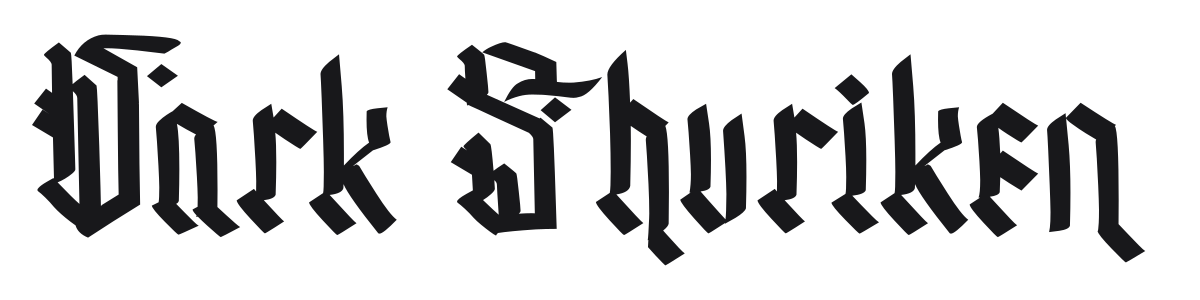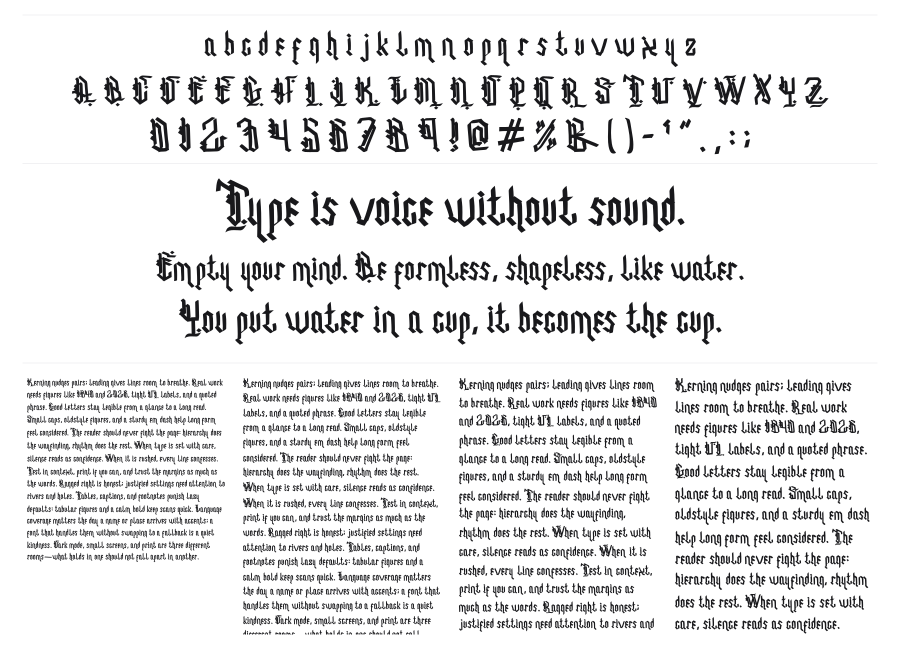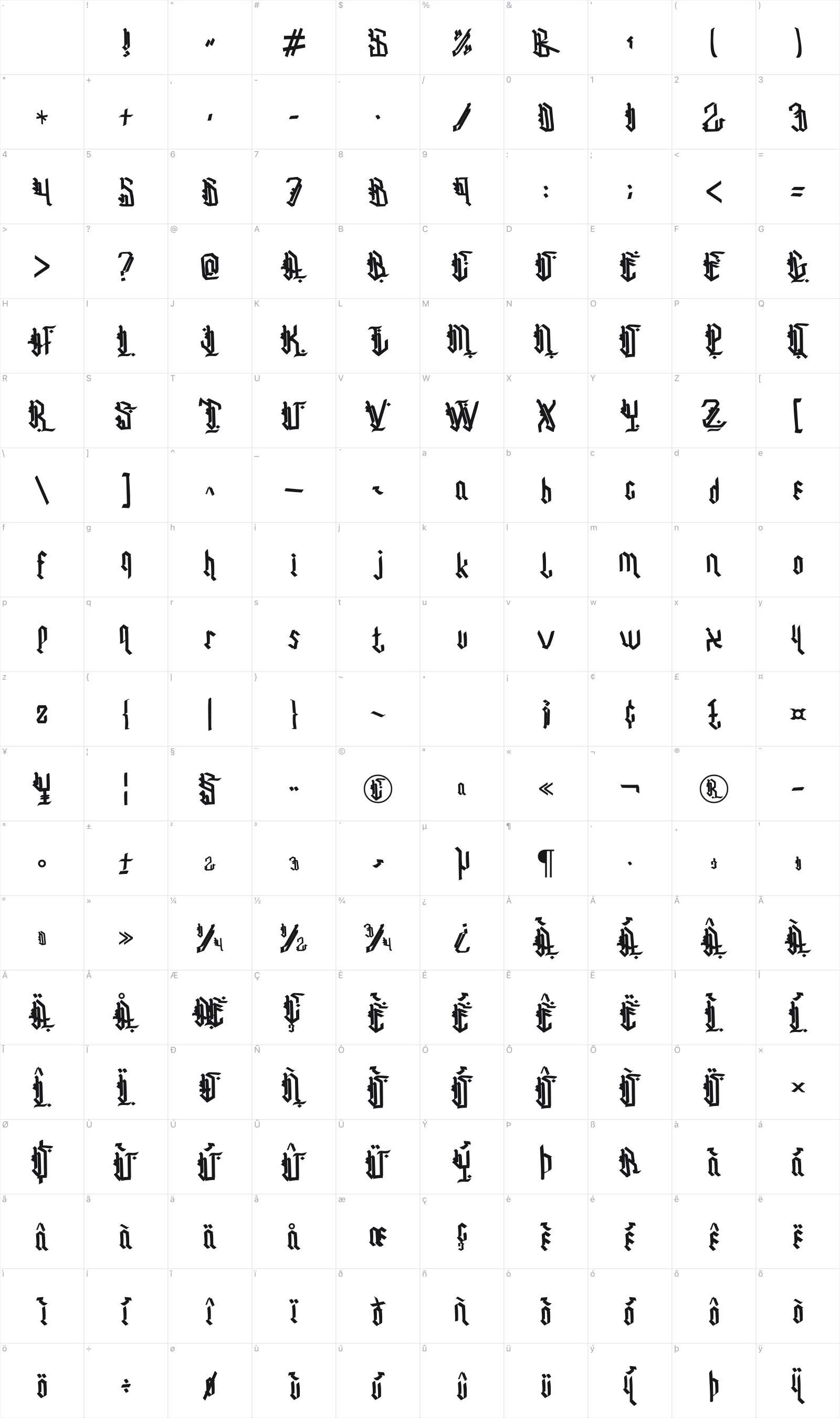
Dark Shuriken
Dark Shuriken is a heavy Gothic display font that fuses blackletter tradition with sharp, blade-like angular cuts throughout its strokes. The geometric faceting on terminals evokes the shuriken namesake, giving it an edge that sits naturally in metal, tattoo, and streetwear contexts. Bold and commanding, it carries the weight of medieval script with a distinctly modern aggression.